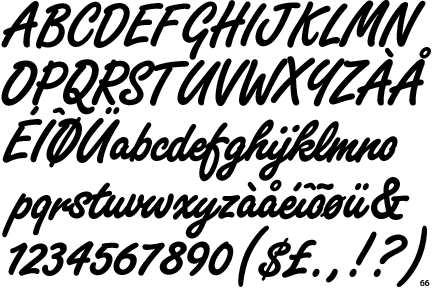
Freestyle Script Font Bold
Download free font freestyle script bold. Freestyle script is the work of designer martin wait.
Freestyle script font bold. Its capitals can be used alone in word settings and are complemented by an extensive lower case alphabet which includes ligatures of every imaginable variety. Freestyle script is the work of designer martin wait. This font also features extensive lowercase letters including ligatures so that every conceivable letter combination can be linked, ensuring the spontaneous, flui.